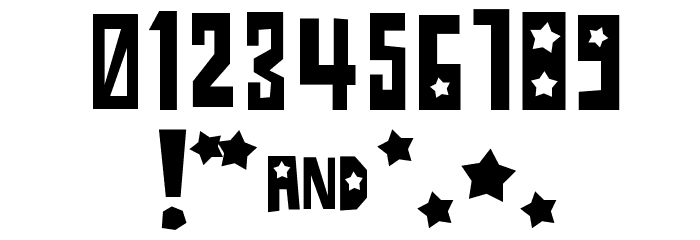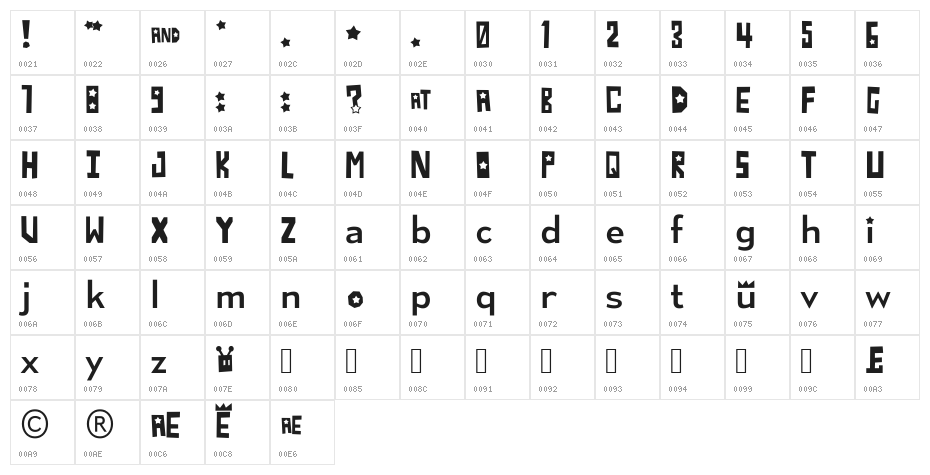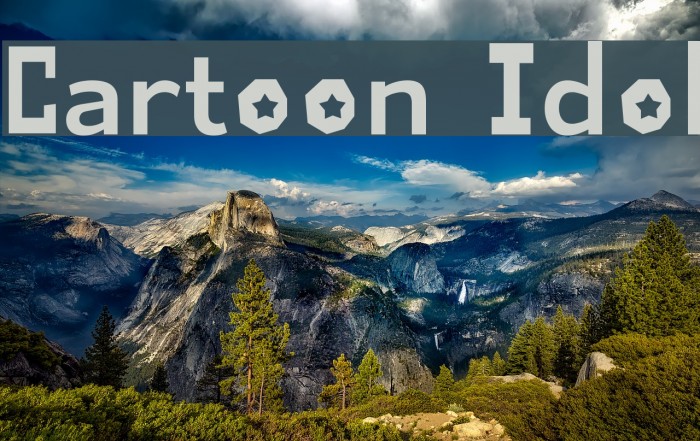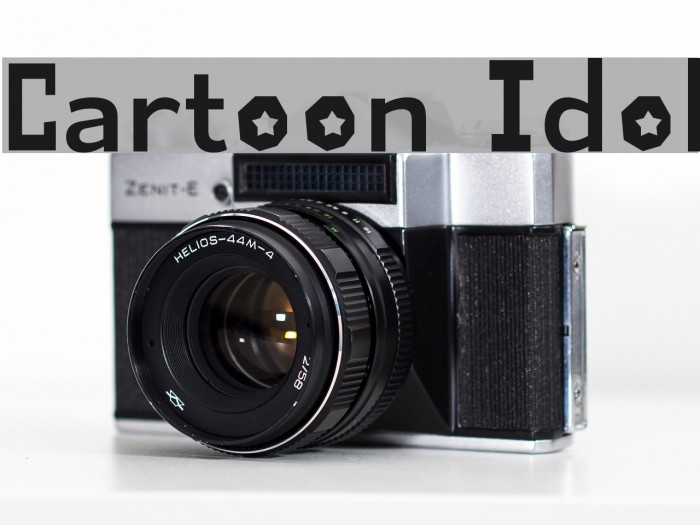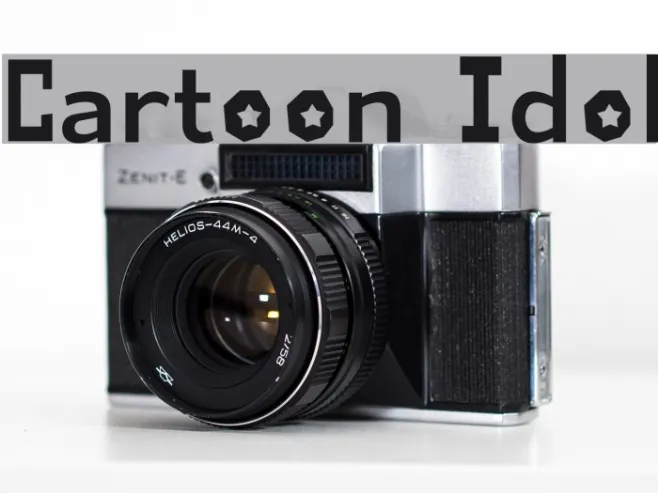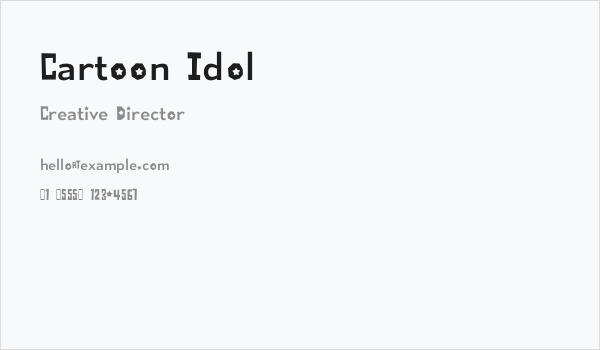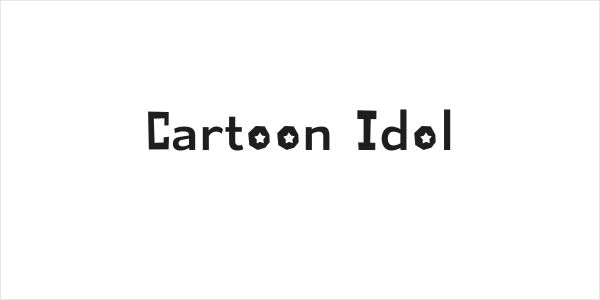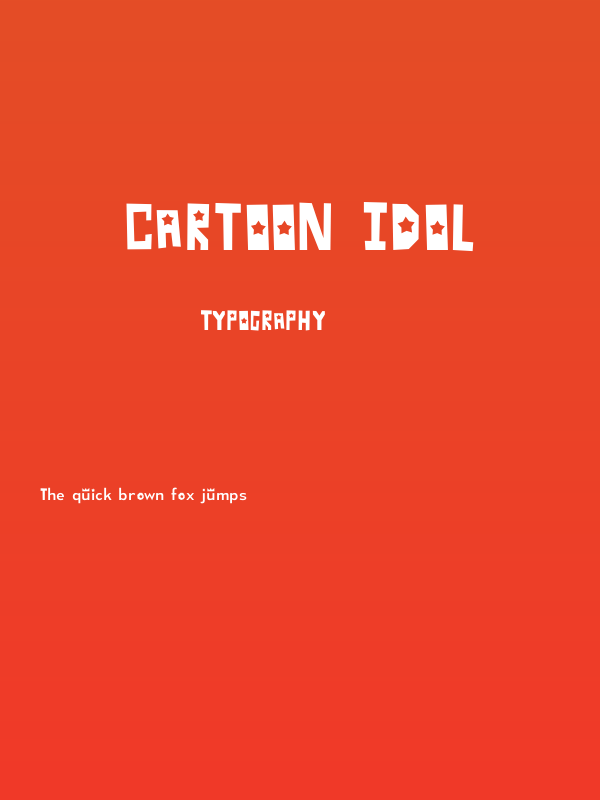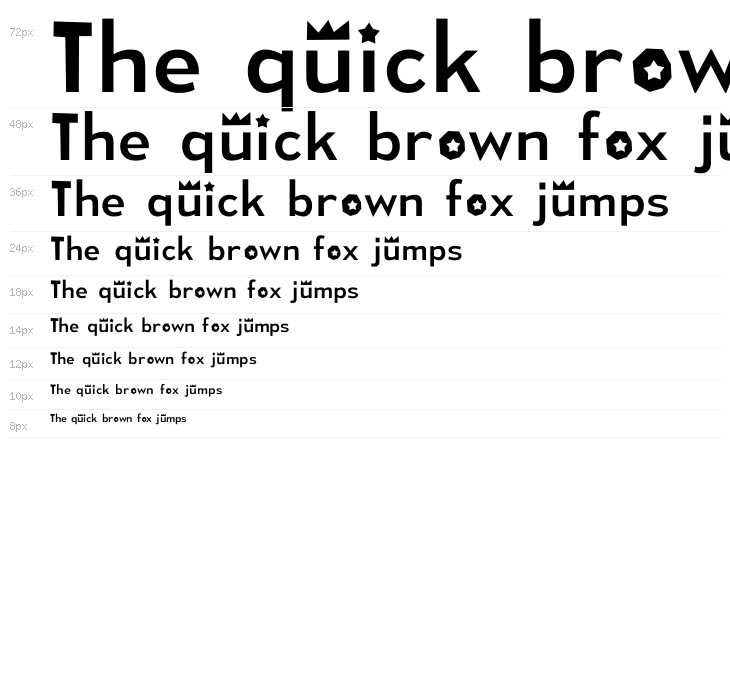
Cartoon Idol Font
Cartoon Idol Description
This playful and bold font features a unique design with star cutouts in several uppercase letters and numbers, adding a whimsical touch. The uppercase letters are blocky and geometric, while the lowercase letters are more rounded and smooth, providing a nice contrast. The font includes a variety of special characters, such as exclamation points and ampersands, which also incorporate the star motif. The overall style is fun and decorative, making it suitable for creative and informal projects.
| Proposed Projects | Ideal for children's books, party invitations, playful branding, and any project needing a fun and whimsical touch. |